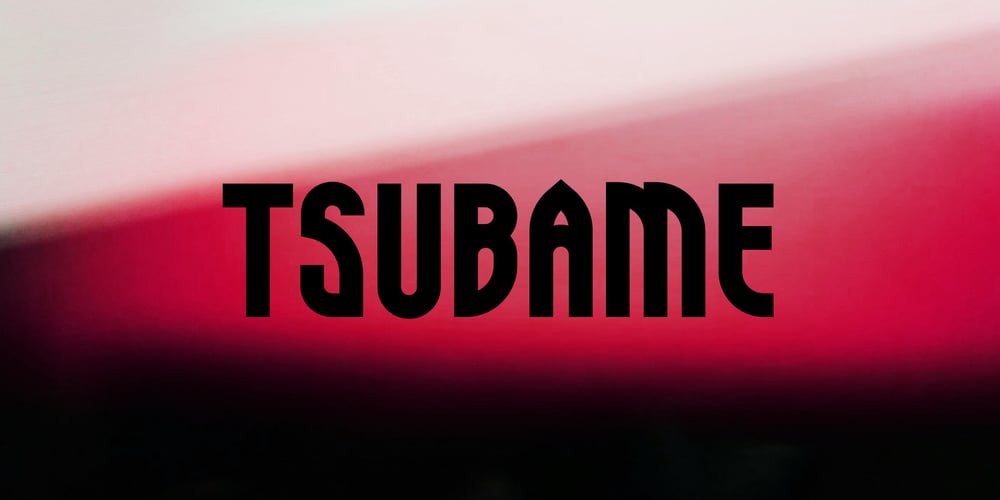
Tsubame Font Family was designed by Soshi Naemura and published by Thirdin. Tsubame contains 8 styles and family package options. “TSUBAME” means swallow in Japanese.These fonts are based on the shape of Tsubame.The relationship between humans and swallows is as deep-rooted. Japanese swallows have adapted to nesting in and around human habitation from ancient time. So in Japan, they prohibited people from catching or killing swallows because of their beneficial role as insect eaters.Since the relationship between humans and swallows is close, this font’s letter spacing is designed to be very tight.